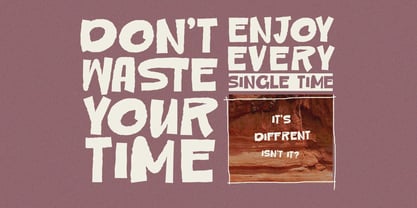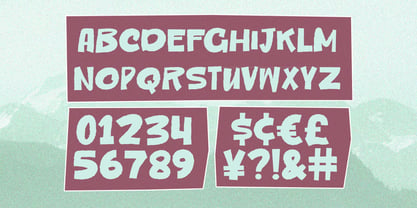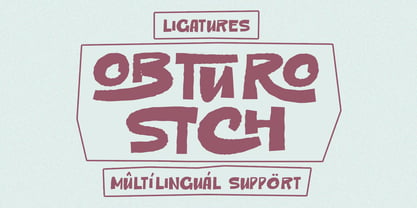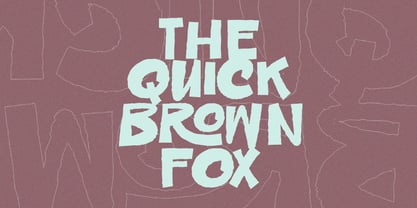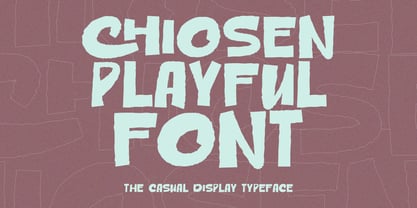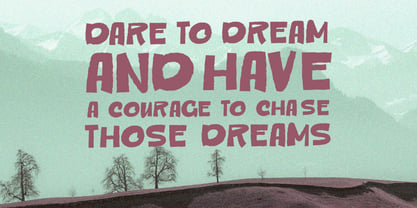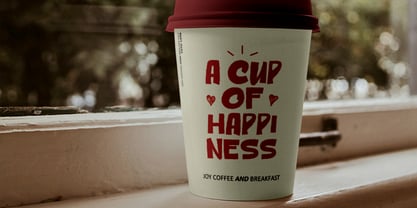
MC Chiosen
by Maulana Creative
The MC Chiosen Font Family was designed by Gilang Maulana and published by Maulana Creative. MC Chiosen contains 1 styles. More about this family
Chiosen Playful Casual Display Font.
Chiosen is a playful casual display brush font. With bold stroke, fun character with a bit of ligatures. To give you an extra creative work. Chiosen font support multilingual more than 100+ language. This font is good for logo design, Social media, Movie Titles, Books Titles, a short text even a long text letter and good for your secondary text font with sans or serif. Make a stunning work with Chiosen font.
Designers: Gilang Maulana
Foundry: Maulana Creative